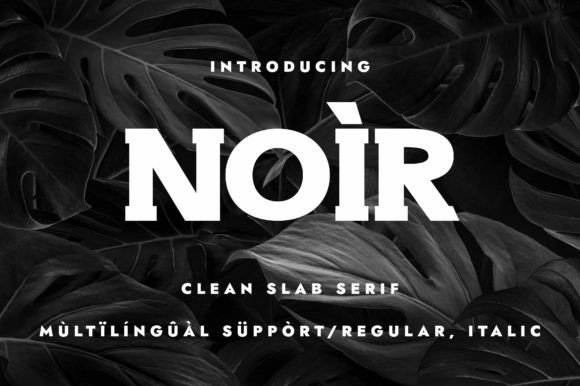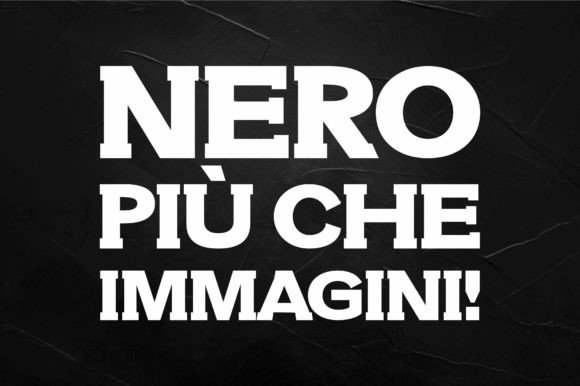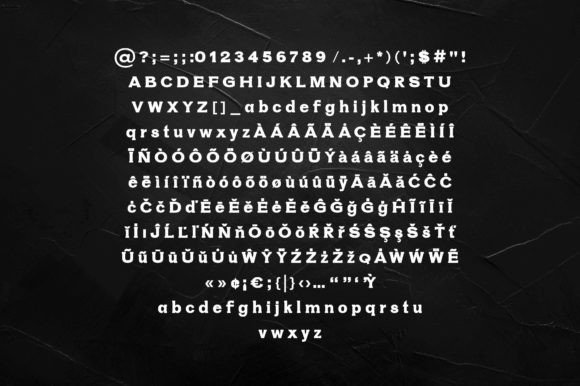
Noir
Noir: An Elegant and Versatile Slab Serif Typeface
Noir is an elegant slab serif typeface. Initially designed as a modern slab serif font for display purposes, it reached its full potential after the glyphs were revised. Although it’s primarily a display slab serif, Noir remains readable even at smaller scales. Use it confidently for powerful visual attention in elegant or luxurious contexts.
Key Features of Noir
• Elegant Design: Offers a sophisticated and refined look suitable for various applications.
• Slab Serif Structure: Features distinctive serifs that add character and style.
• Versatile Application: Suitable for both display and smaller text sizes.
• Modern Aesthetic: Brings a contemporary feel to designs while maintaining elegance.
Ideal Uses for Noir
Noir’s unique characteristics make it particularly well-suited for:
When incorporating Noir into your designs, consider these tips:
• Use for headlines or short blocks of text to showcase its elegant features.
• Experiment with different sizes to highlight the font’s versatility in both display and smaller text applications.
• Utilize its modern yet elegant appearance to create designs that evoke sophistication and luxury.
Noir is an excellent choice for designers looking to add an elegant and versatile slab serif font to their typographic toolkit. Its ability to command attention while maintaining readability makes it stand out in the world of typography. Whether you’re working on luxury branding, creating high-end packaging, or developing content that requires a touch of sophistication, Noir offers the perfect blend of modernity and elegance.
Furthermore, Noir’s unique design allows it to shine in various contexts where a refined and contemporary look is desired. From magazine headlines to upscale restaurant menus, this font can elevate your projects with its distinctive style. Its elegant yet readable appearance works particularly well in designs that aim to convey a sense of luxury and exclusivity.
In conclusion, Noir is a font that truly captures the essence of modern elegance in slab serif typography. Its versatility across different applications showcases its adaptability to various creative needs. For those looking to add a touch of sophisticated charm to their work, Noir can enhance themed creations with its distinctive style. It’s the perfect choice for designers seeking to make a refined, stylish impact across a wide range of luxury-oriented creative projects.